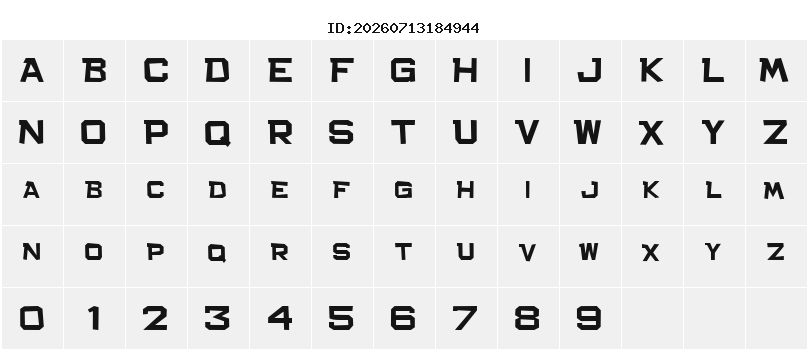
Bachelor Pad JL.ttf is a modern, elegant sans-serif font designed for ultimate readability and visual harmony. Perfect for branding, headlines, web design, and print materials.